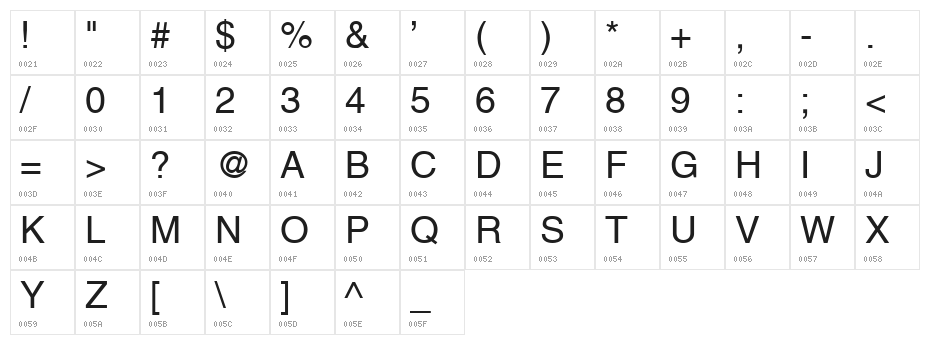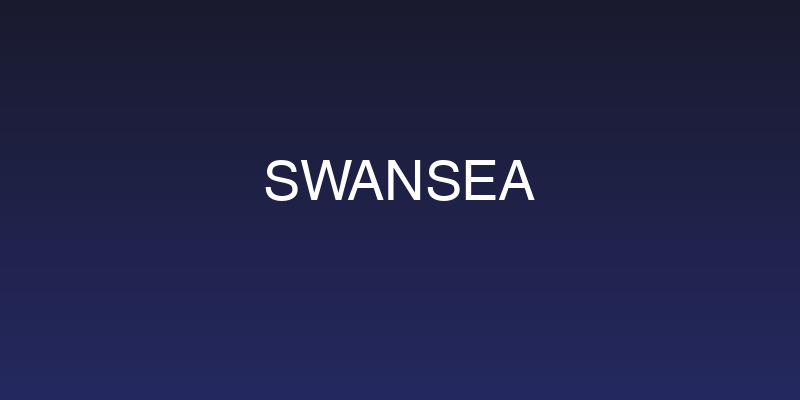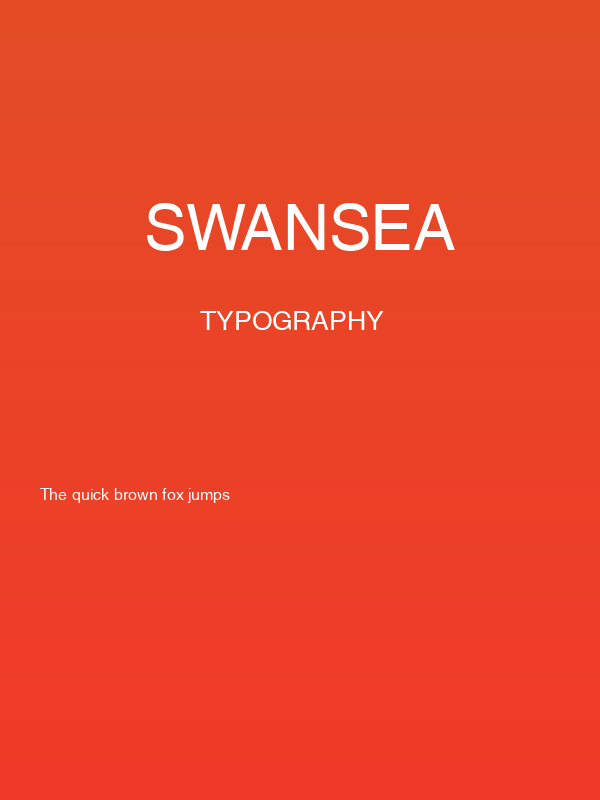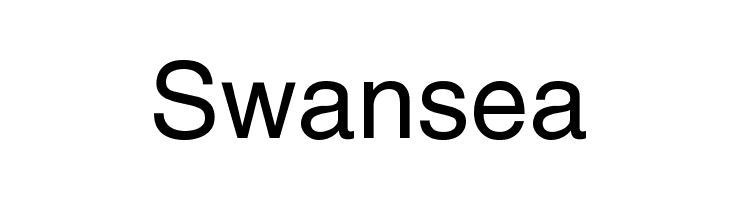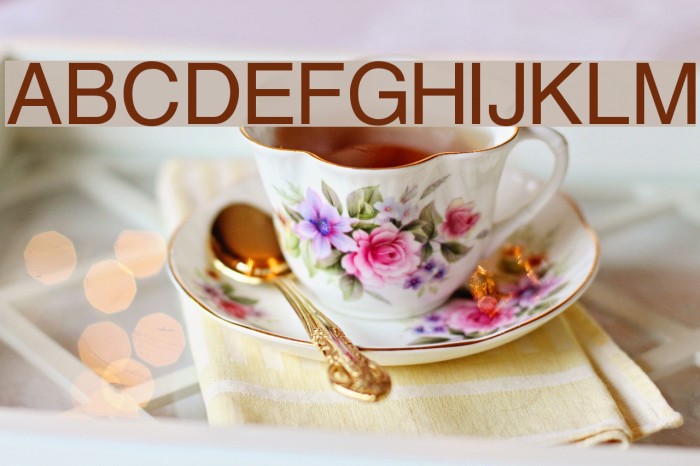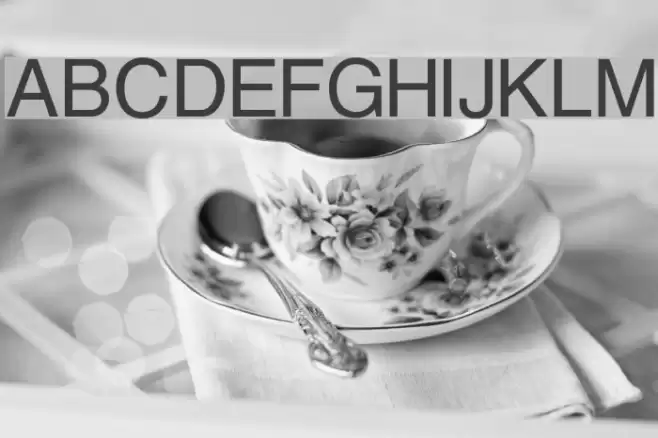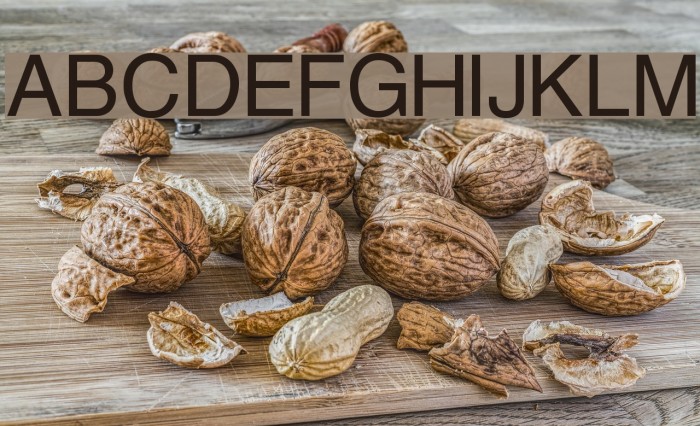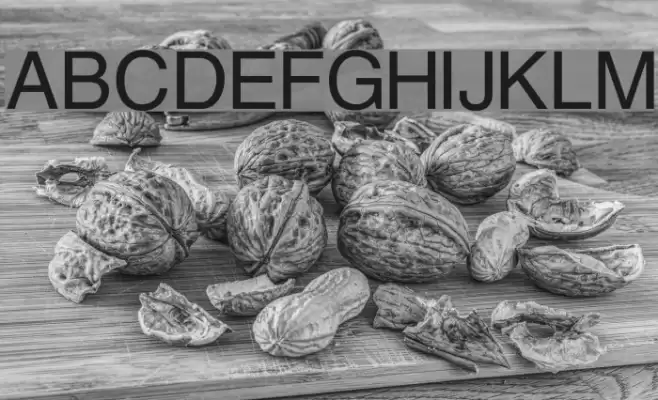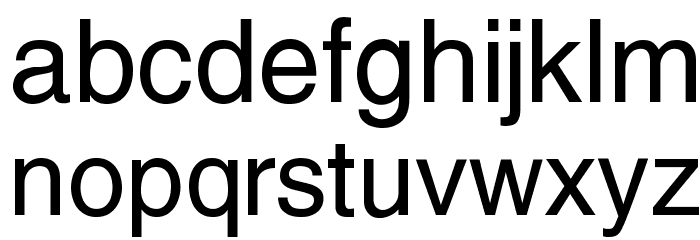
Swansea Font
Swansea Description
This font features a clean and modern sans-serif design, characterized by its simplicity and clarity. The letters are evenly spaced with a consistent stroke width, providing a balanced and harmonious appearance. The uppercase letters are bold and assertive, while the lowercase letters maintain a smooth and approachable look. The numerals are straightforward and easy to read, making them suitable for various applications. Special characters are included, offering versatility for different types of content. Overall, this font exudes a professional and contemporary feel, making it ideal for both digital and print media.
| Use Case | Headlines, Body text, Logos |
| Proposed Projects | Ideal for corporate branding, website headers, digital content, and print materials. |